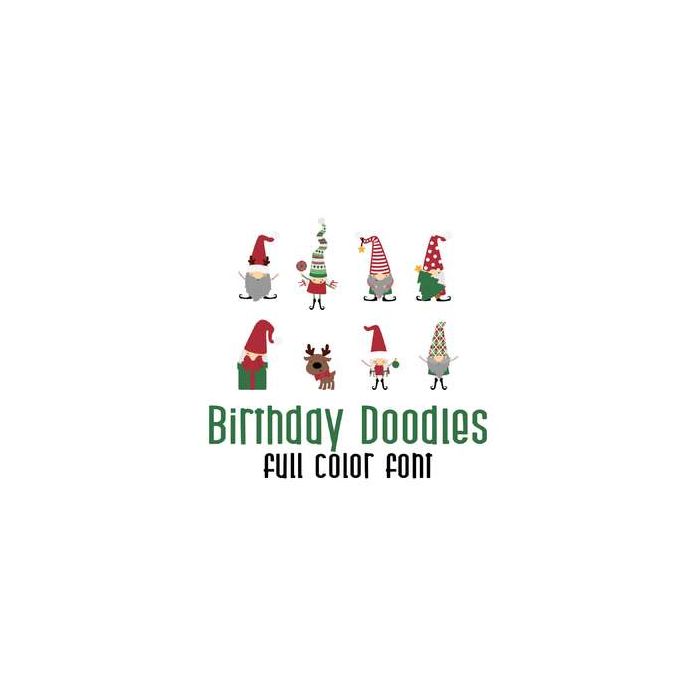
This adorable full color doodlebat font features cut gnomes ready for Christmas. Perfect for cards, crafts, gifts, decor, scrap book pages, planner stickers and more!